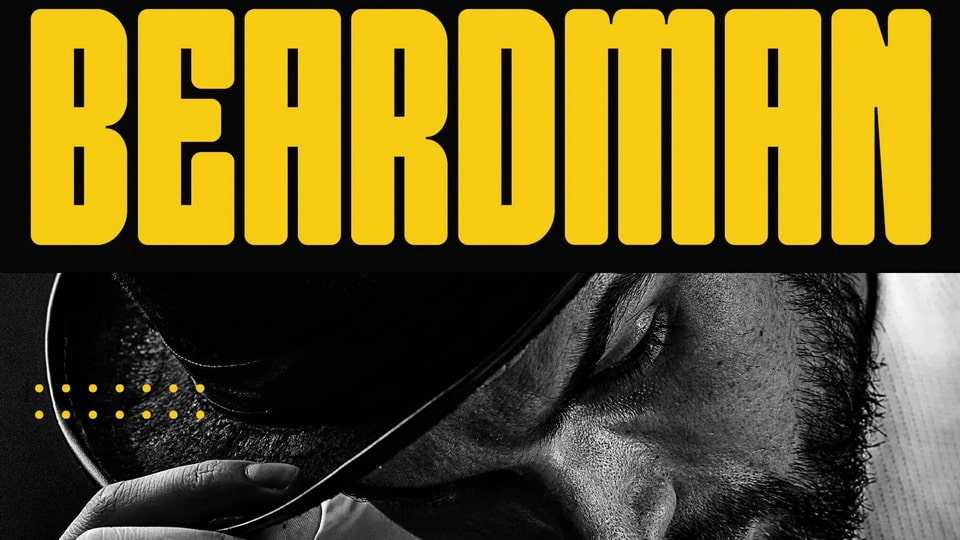
Download Beardman font, a condensed sans-serif typeface designed specifically for bold and powerful headlines and titles that allows you to express yourself with a style that suits your design project.